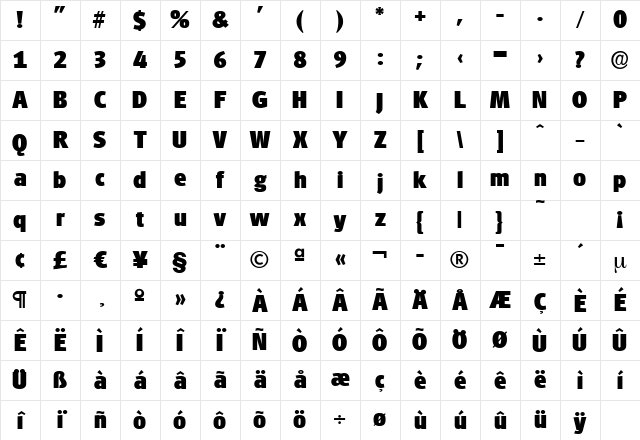
RichardBecker-Heavy Regular
RichardBecker-Heavy Family
Design Context for RichardBecker-Heavy
RichardBecker-Heavy is a composed and adaptable typeface that performs quietly and consistently across a wide range of design contexts.